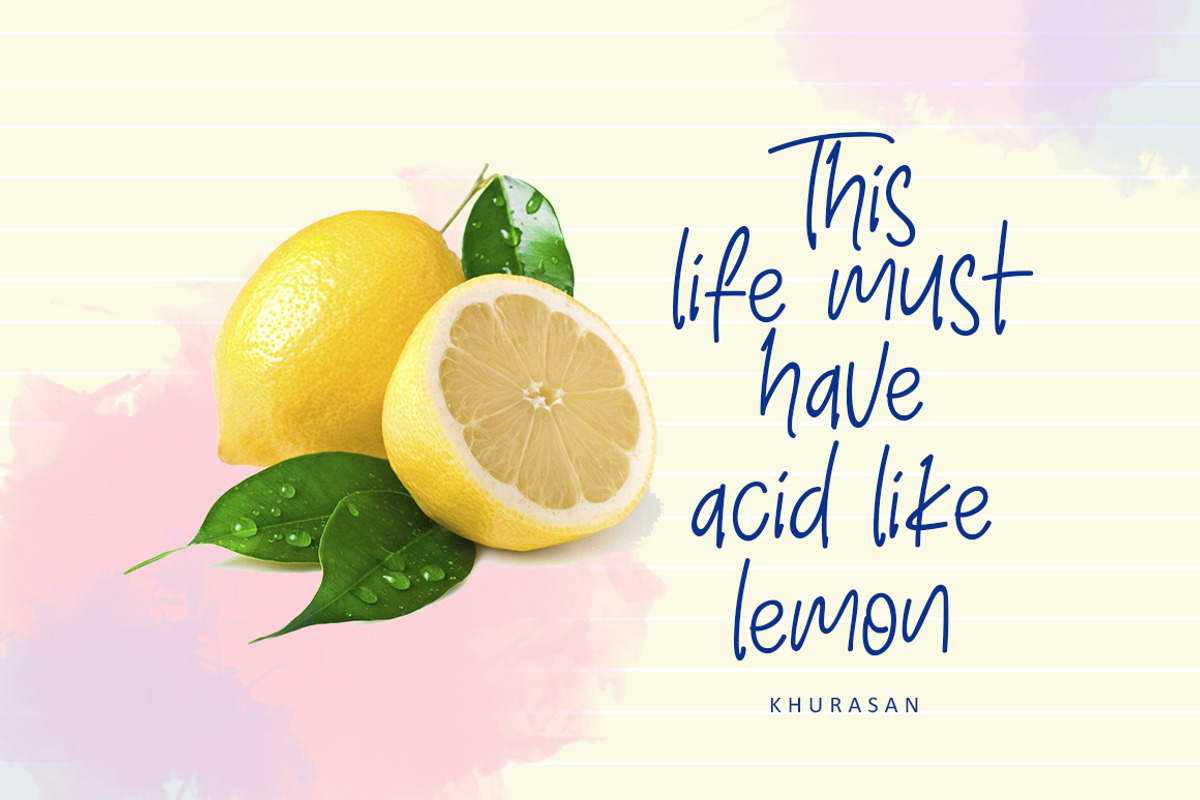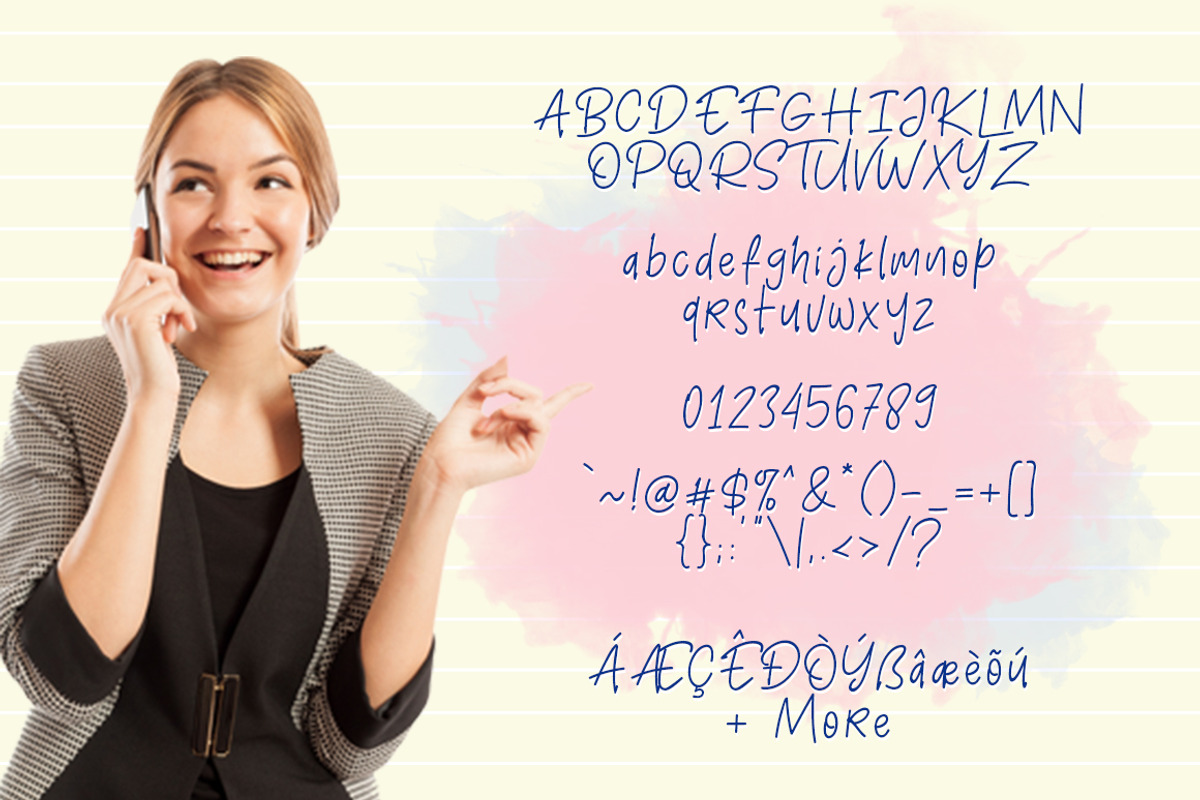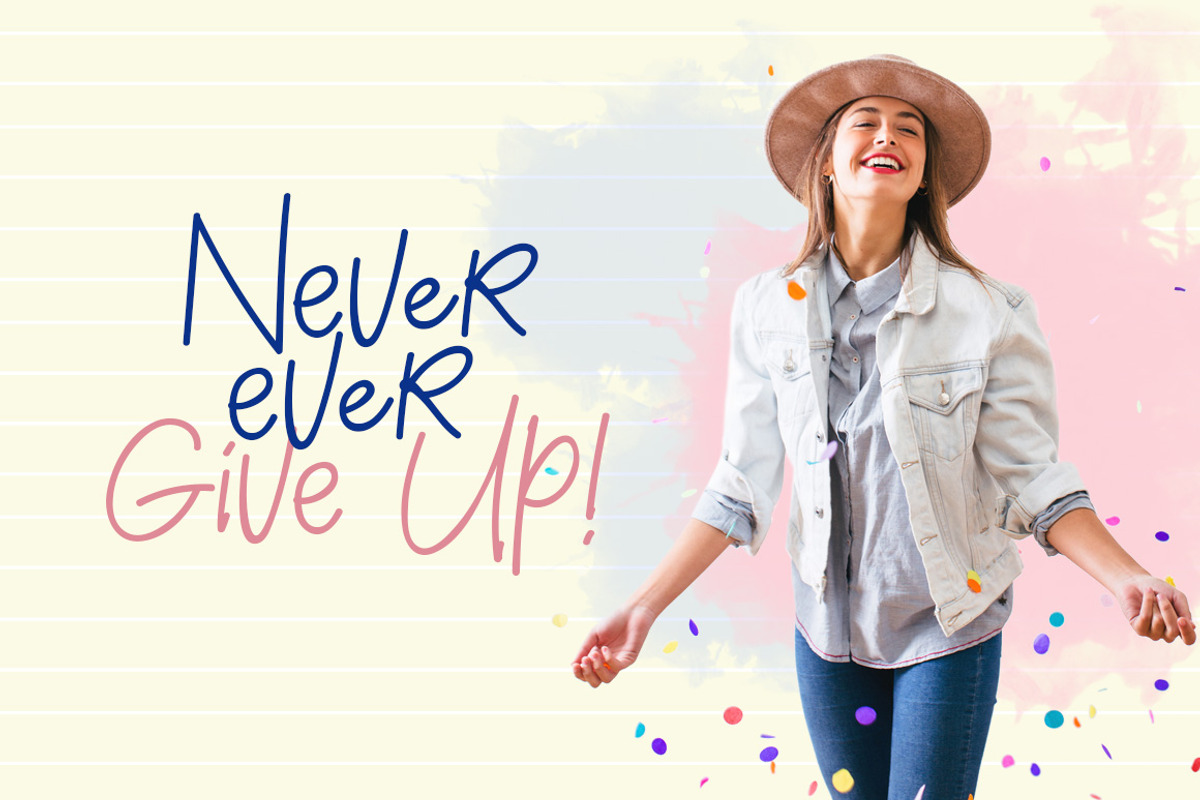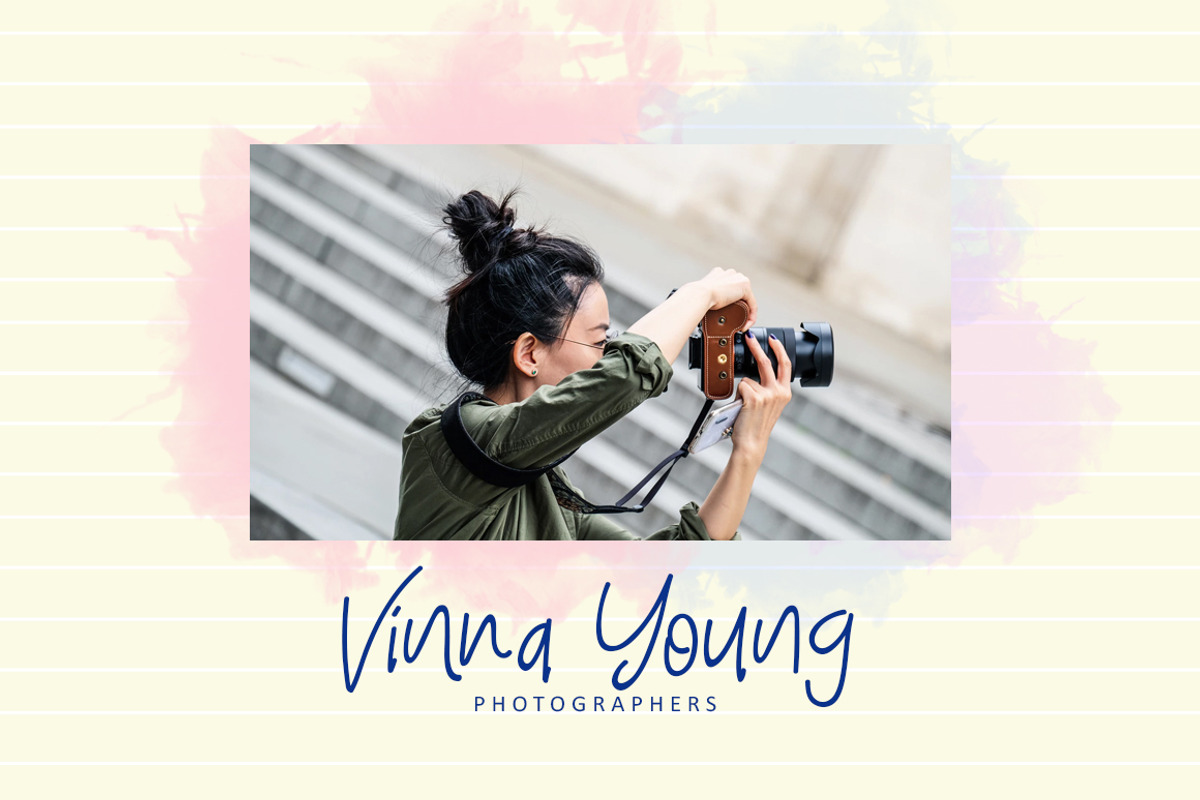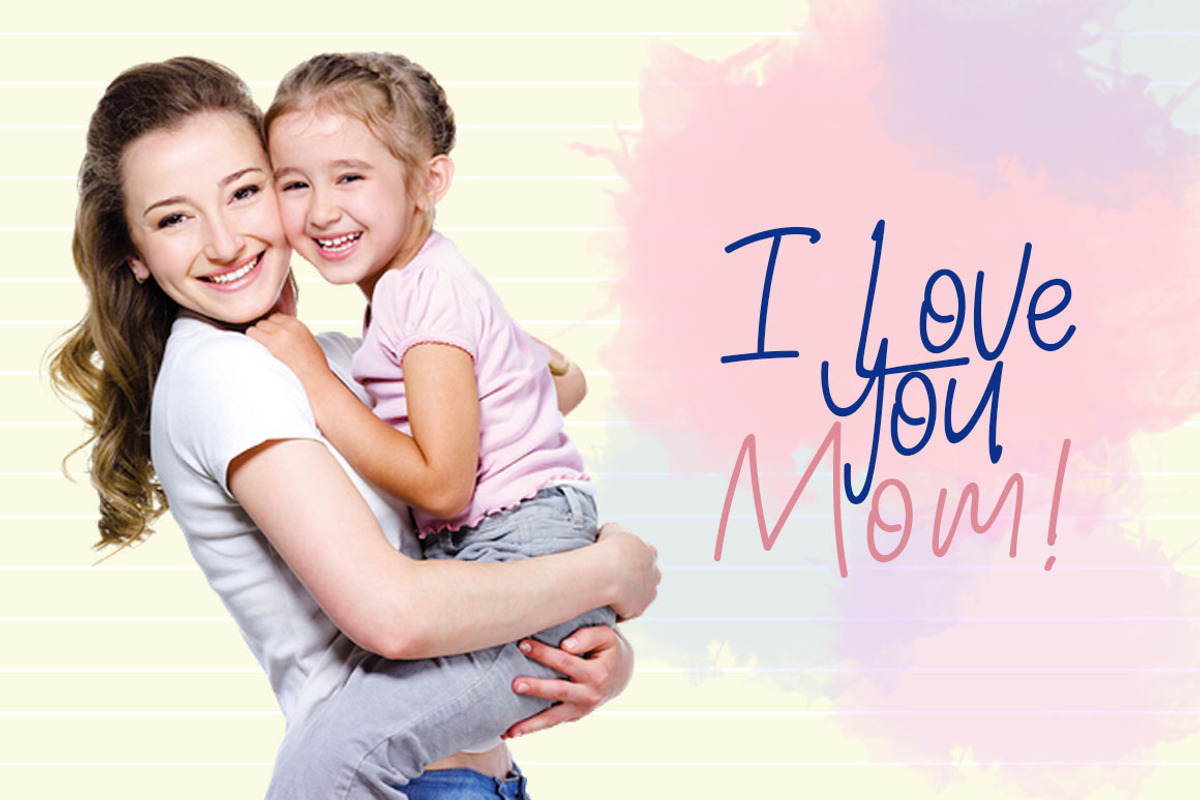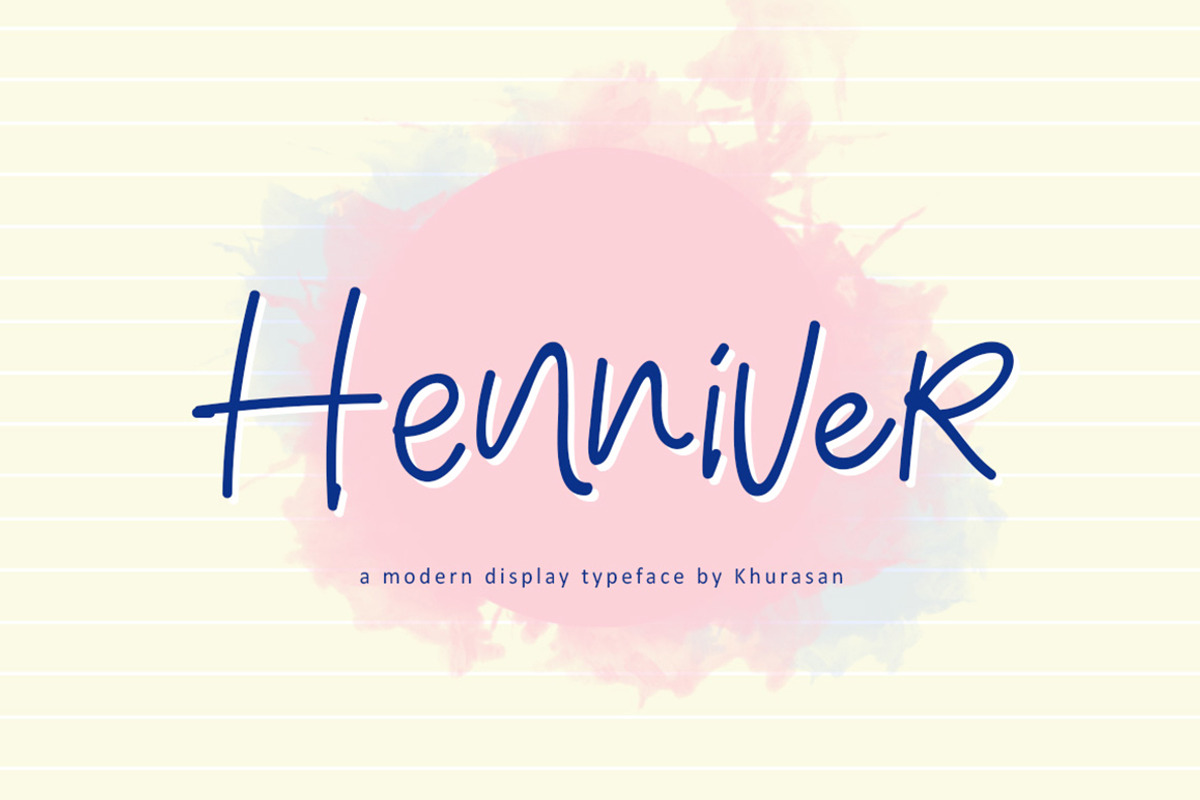
Henniver
Introducing Henniver is a fresh handwritten font, elegant and vintage feel character set. Henniver font includes a full set capital and lowercase letters, as well as multi-lingual support, currency figures, numerals, & punctuation.
Khurasan